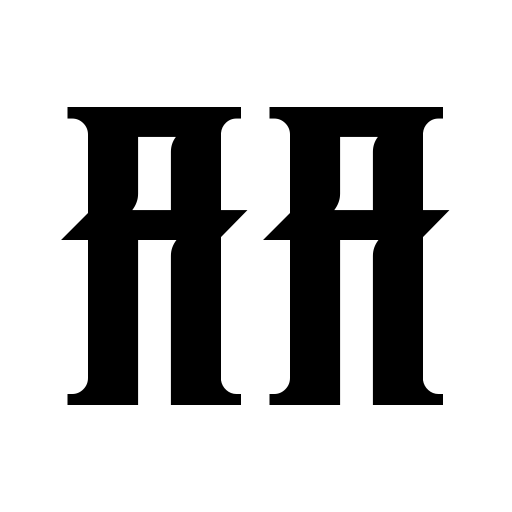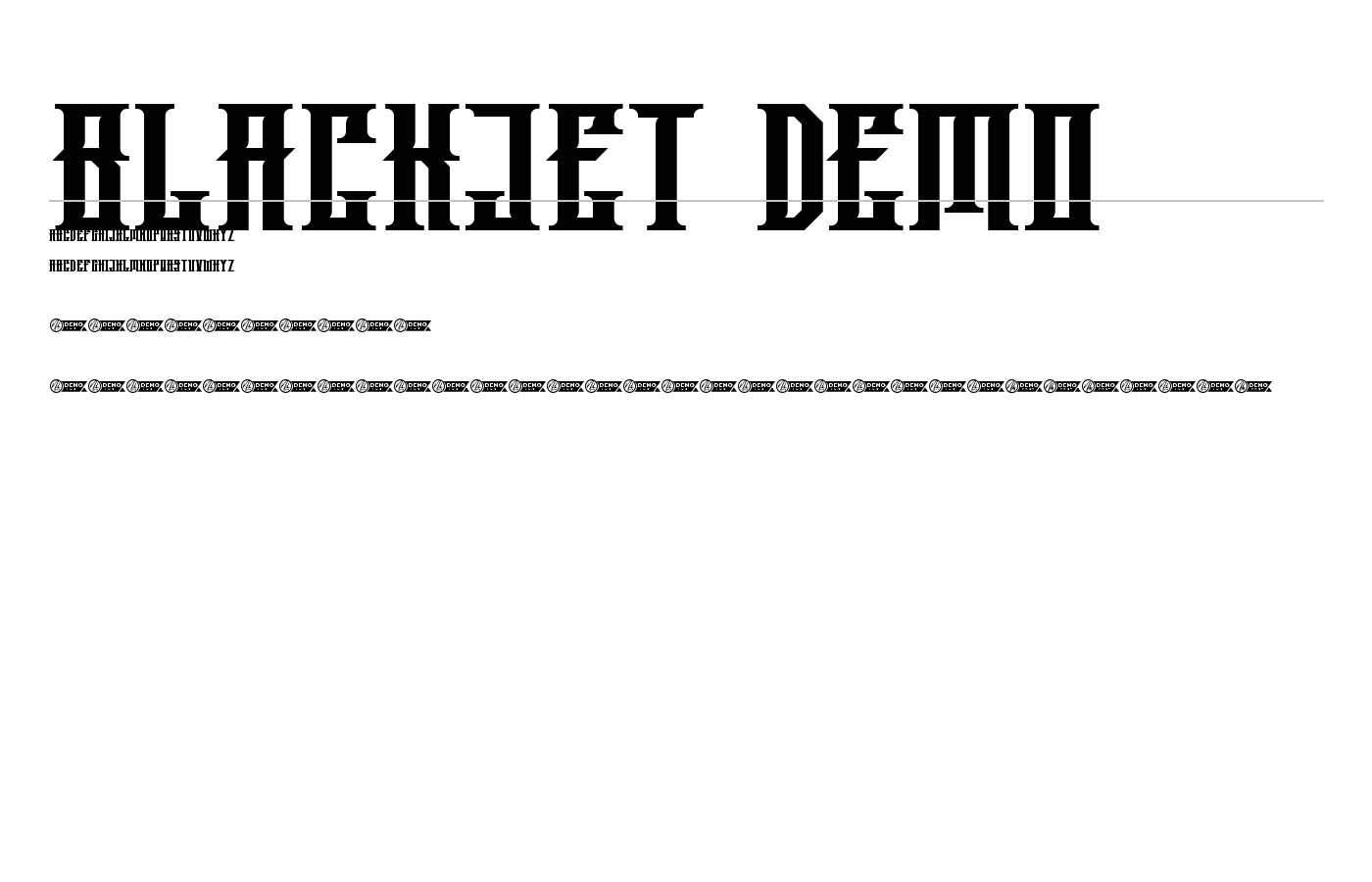
Blackjet Demo is a bold, condensed serif font with a strong, dramatic presence, characterized by its tall, narrow letterforms and distinctive slab-like serifs. Its high contrast between thick vertical strokes and thin horizontal lines gives it an authoritative, vintage-inspired look, perfect for eye-catching headlines, posters, or branding that aims to convey strength and sophistication. This font works best in display settings where its unique style can stand out and make a bold statement.
Blackjet Demo Font
About Blackjet Demo Font